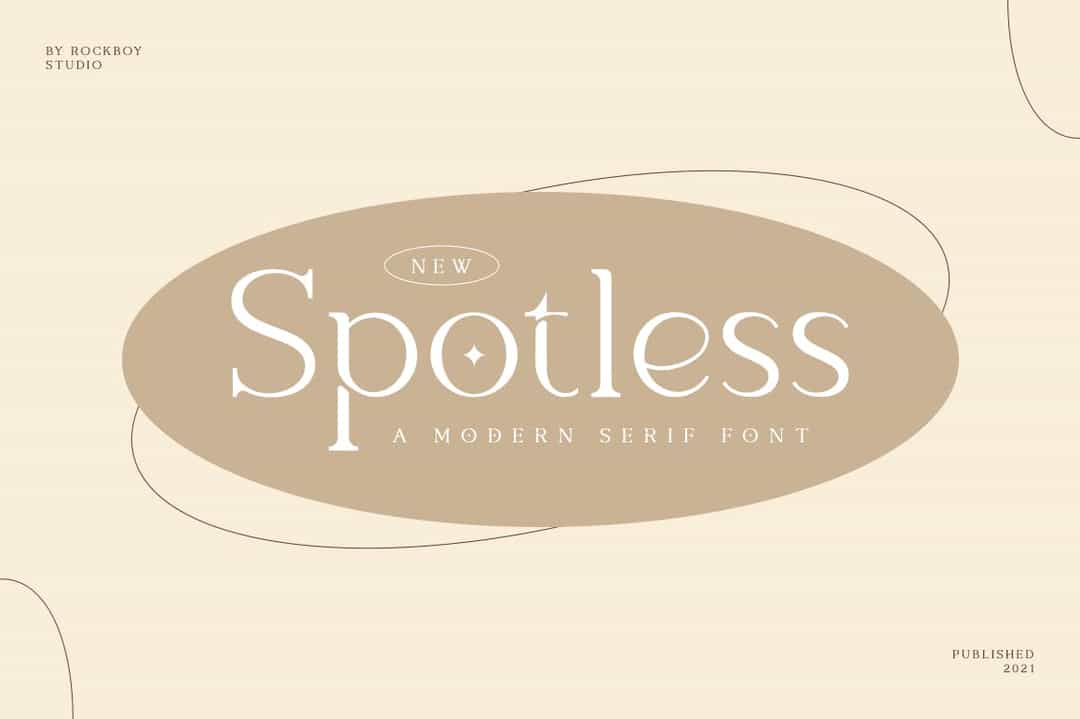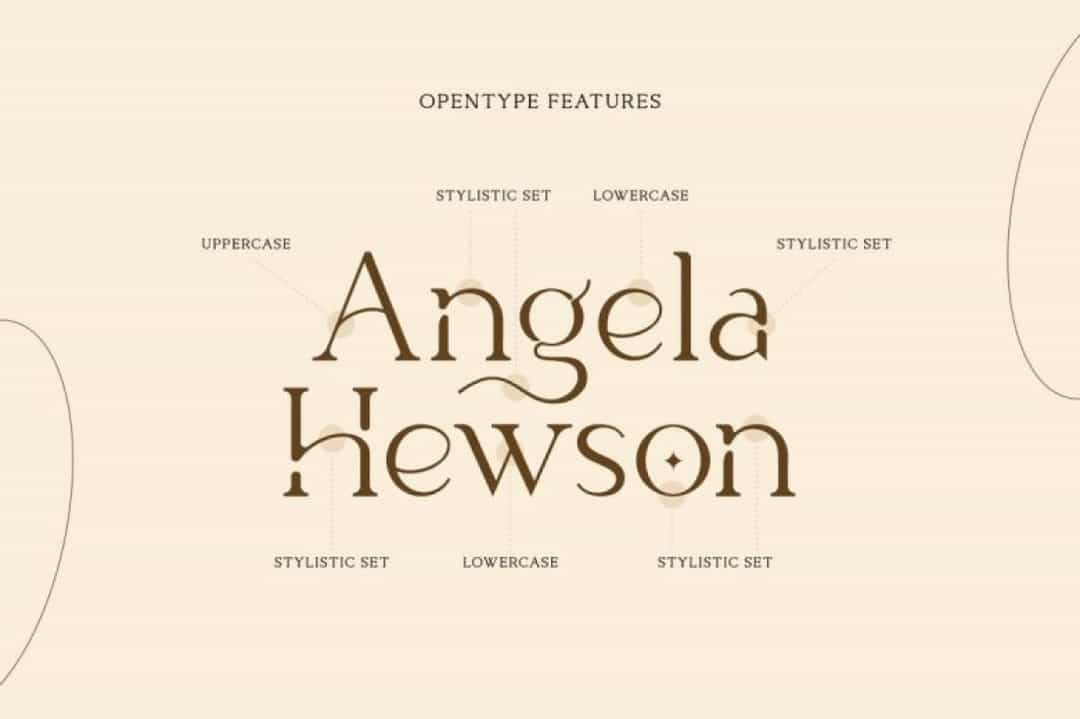
Spotless is an elegant, sophisticated, and authentic serif font designed specifically to take your ideas to the top of the line! Carefully created as an iconic font this font can elevate each of your ideas!